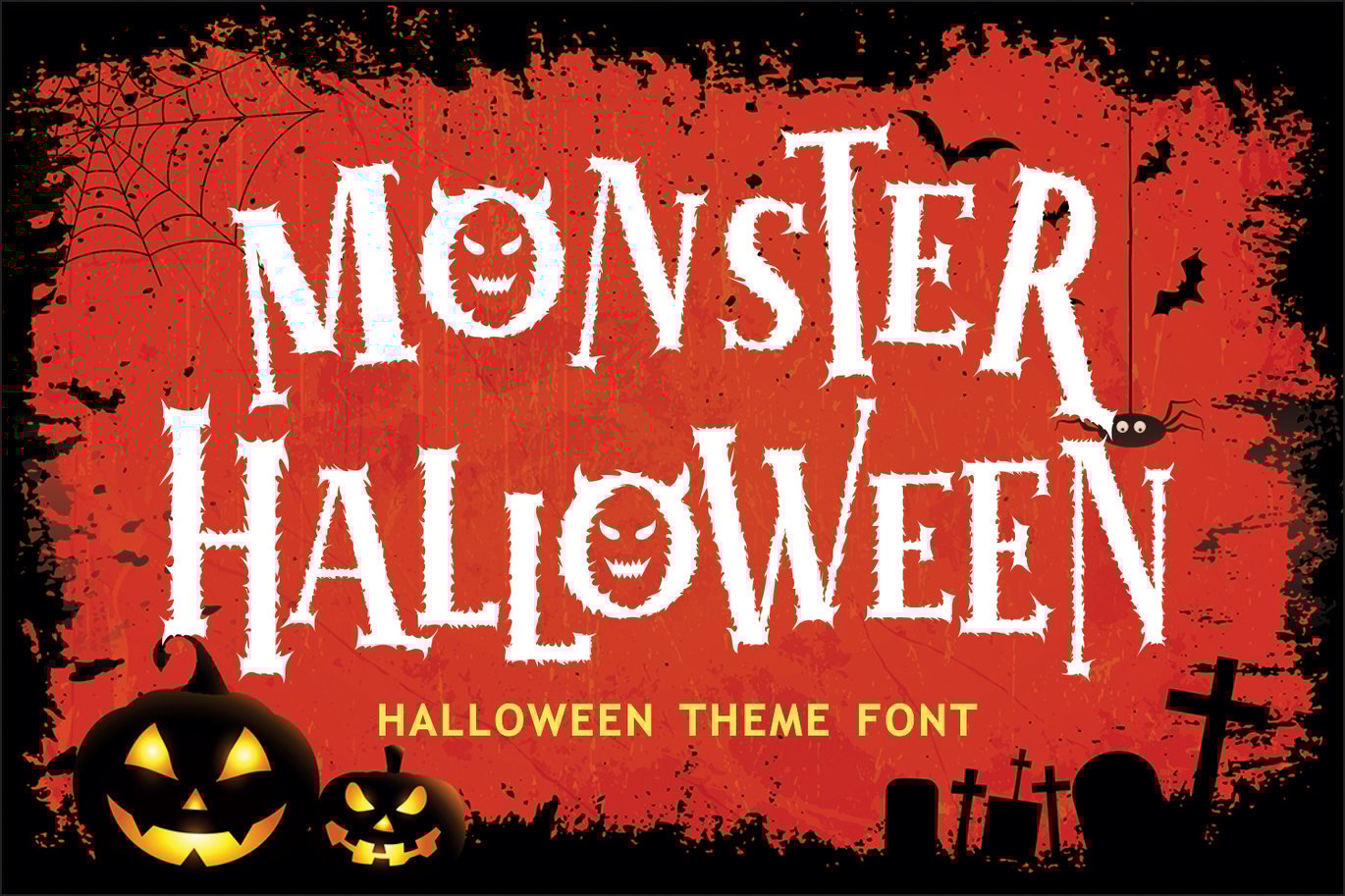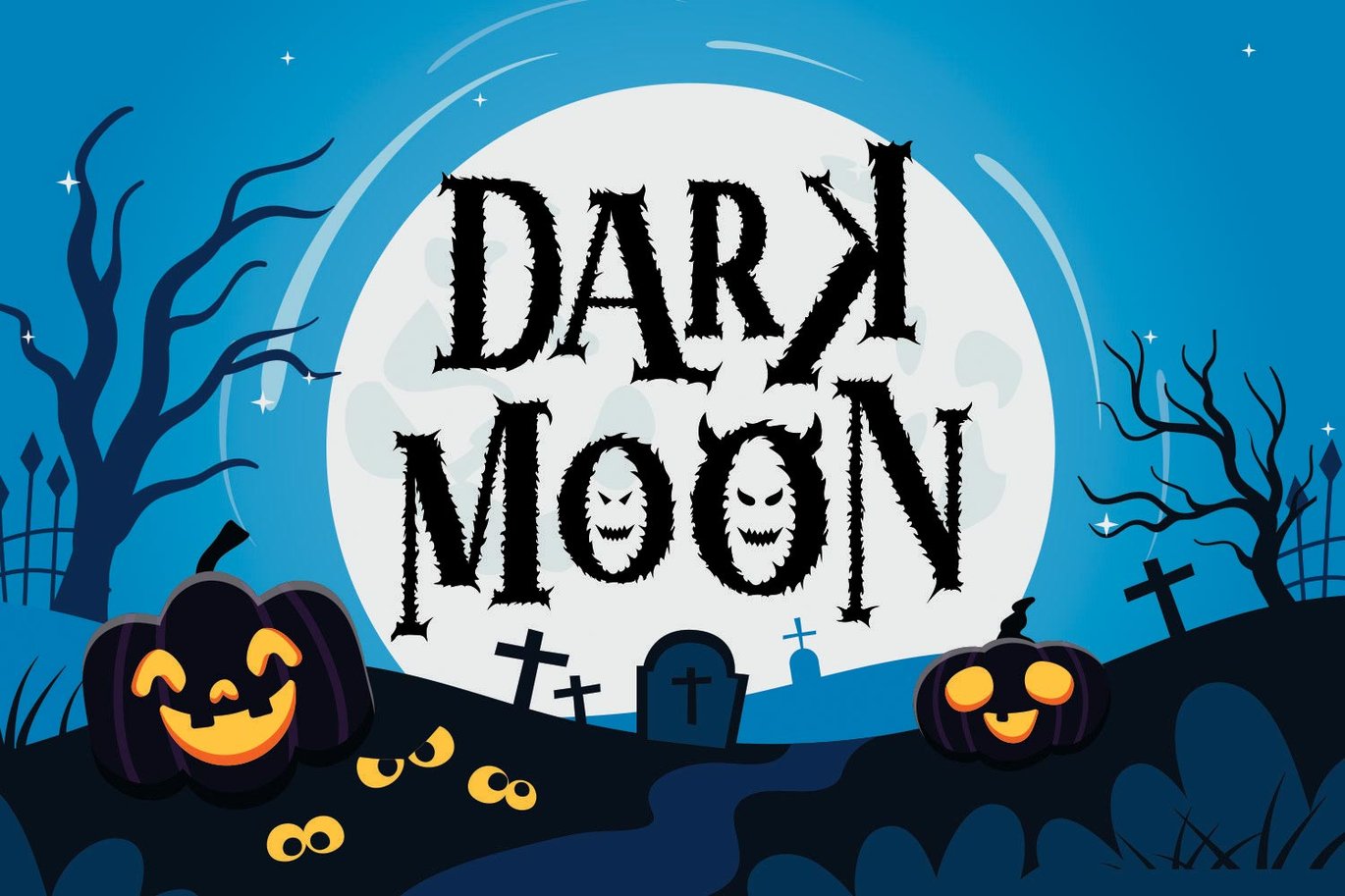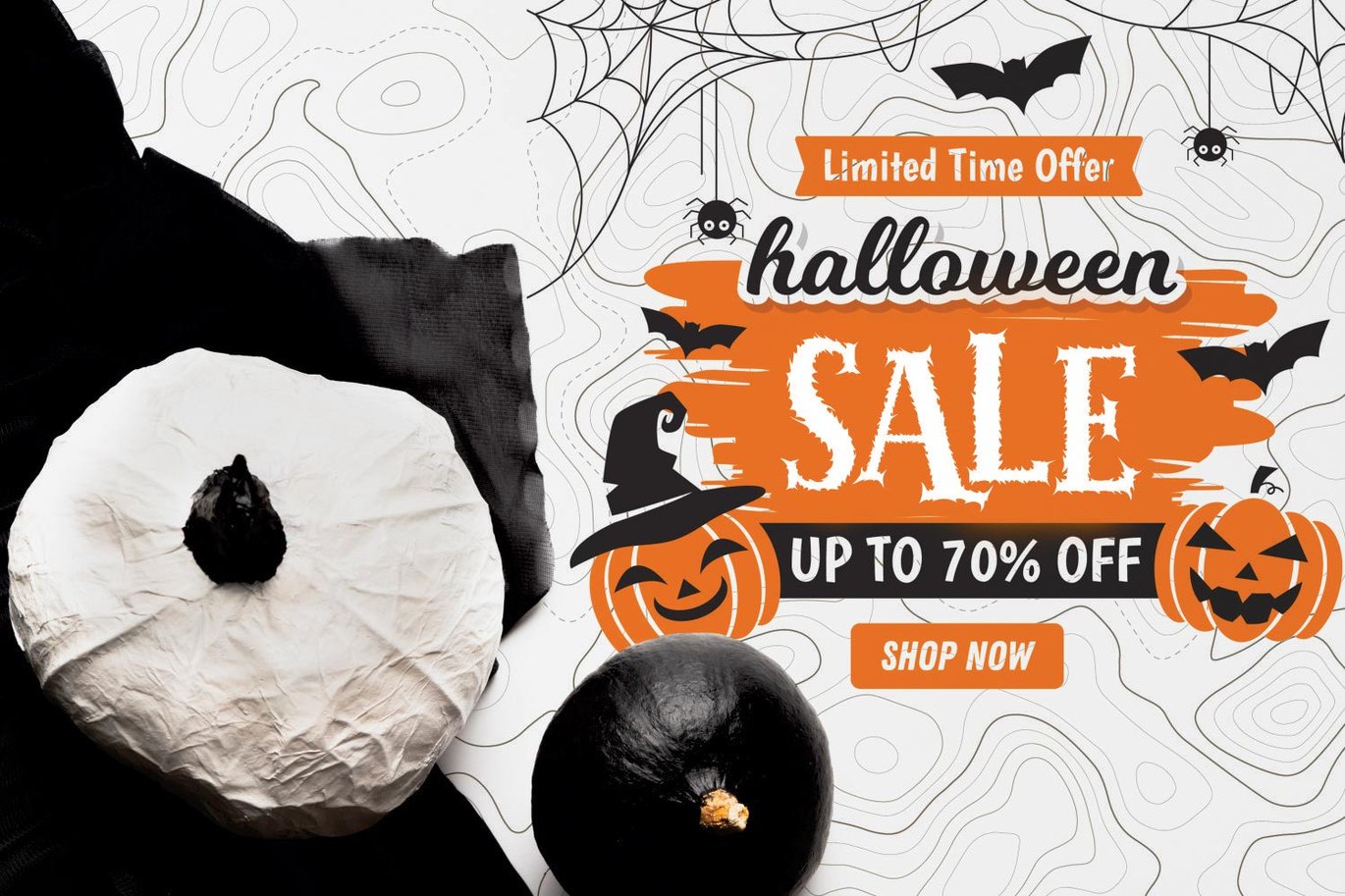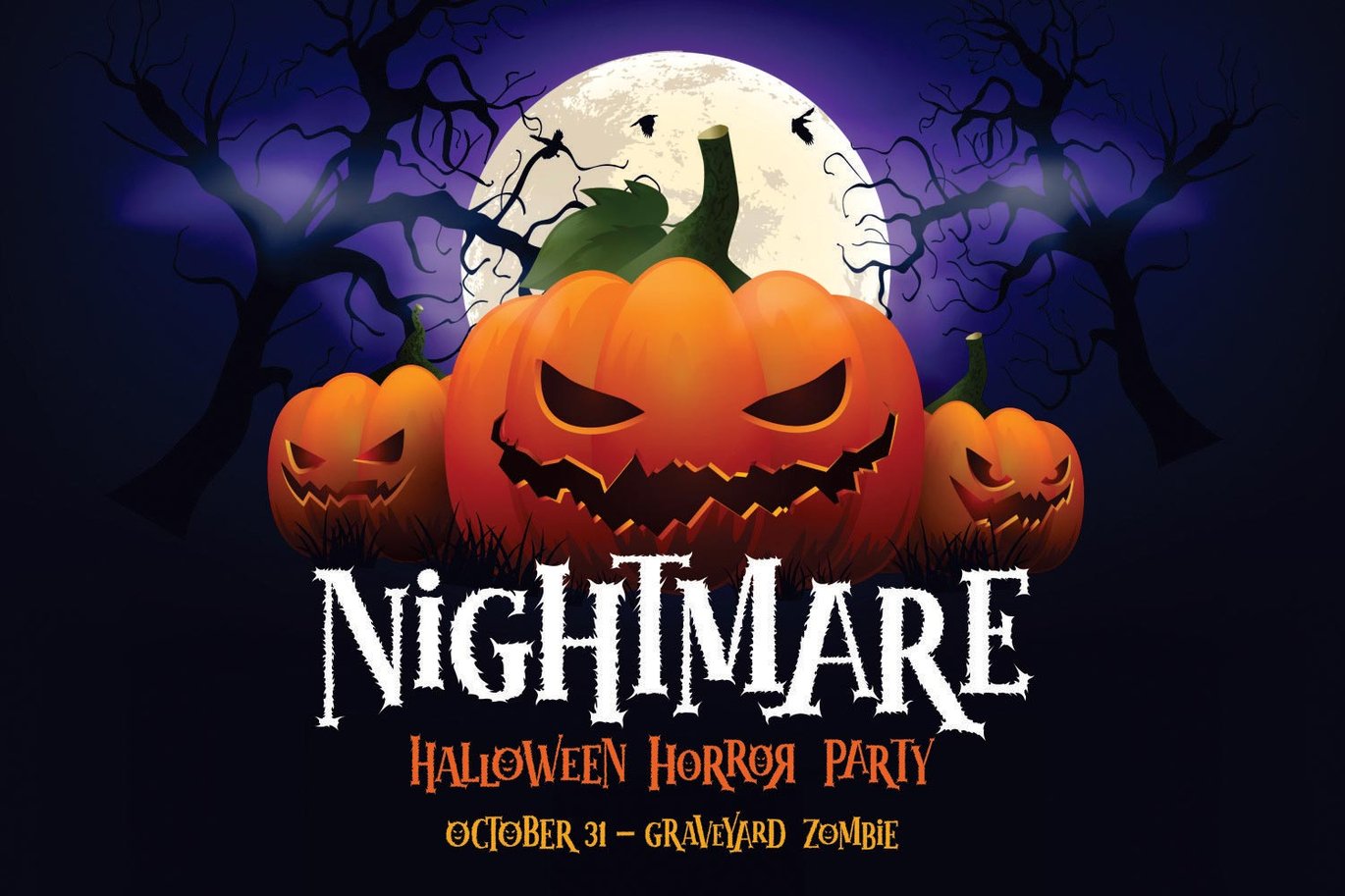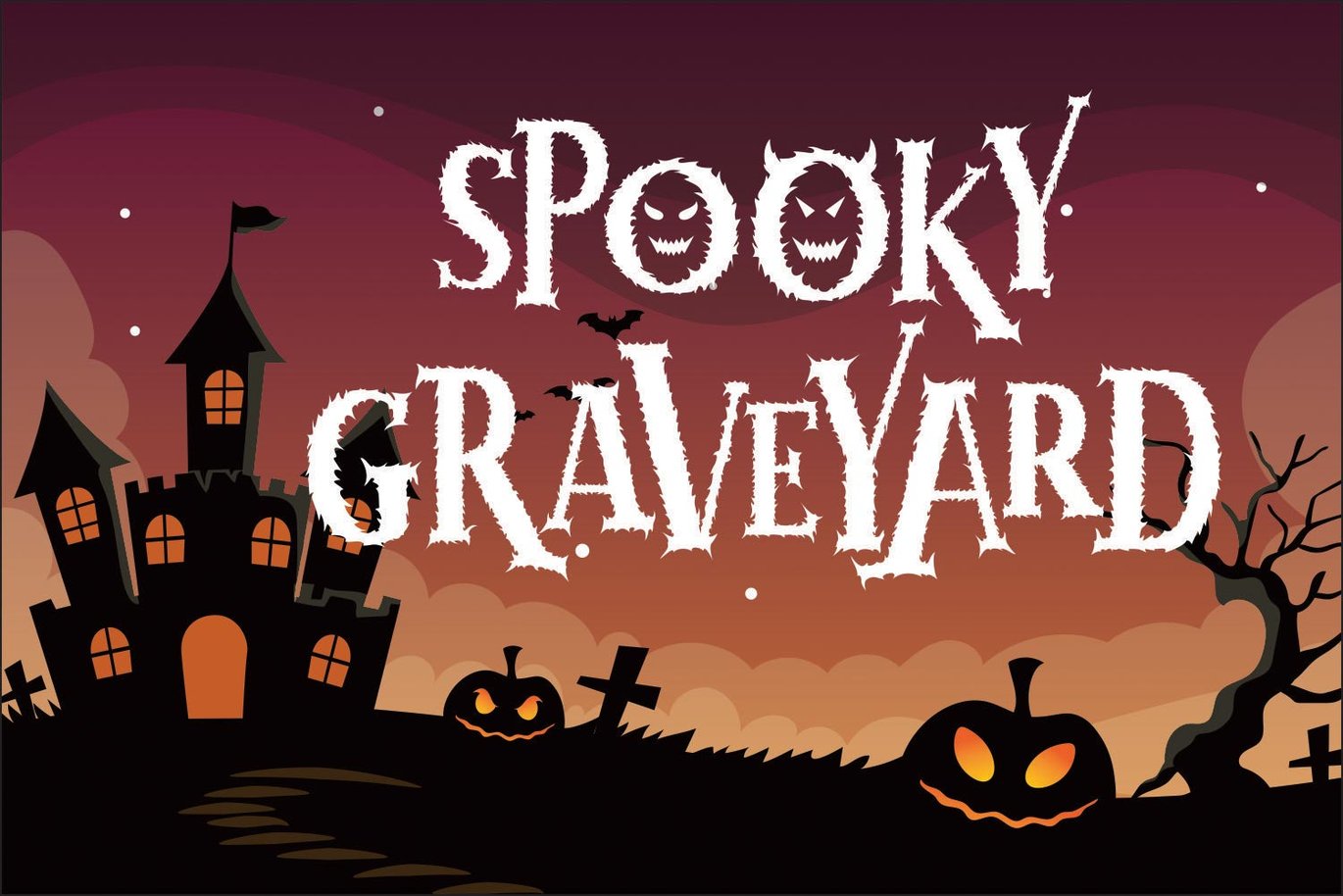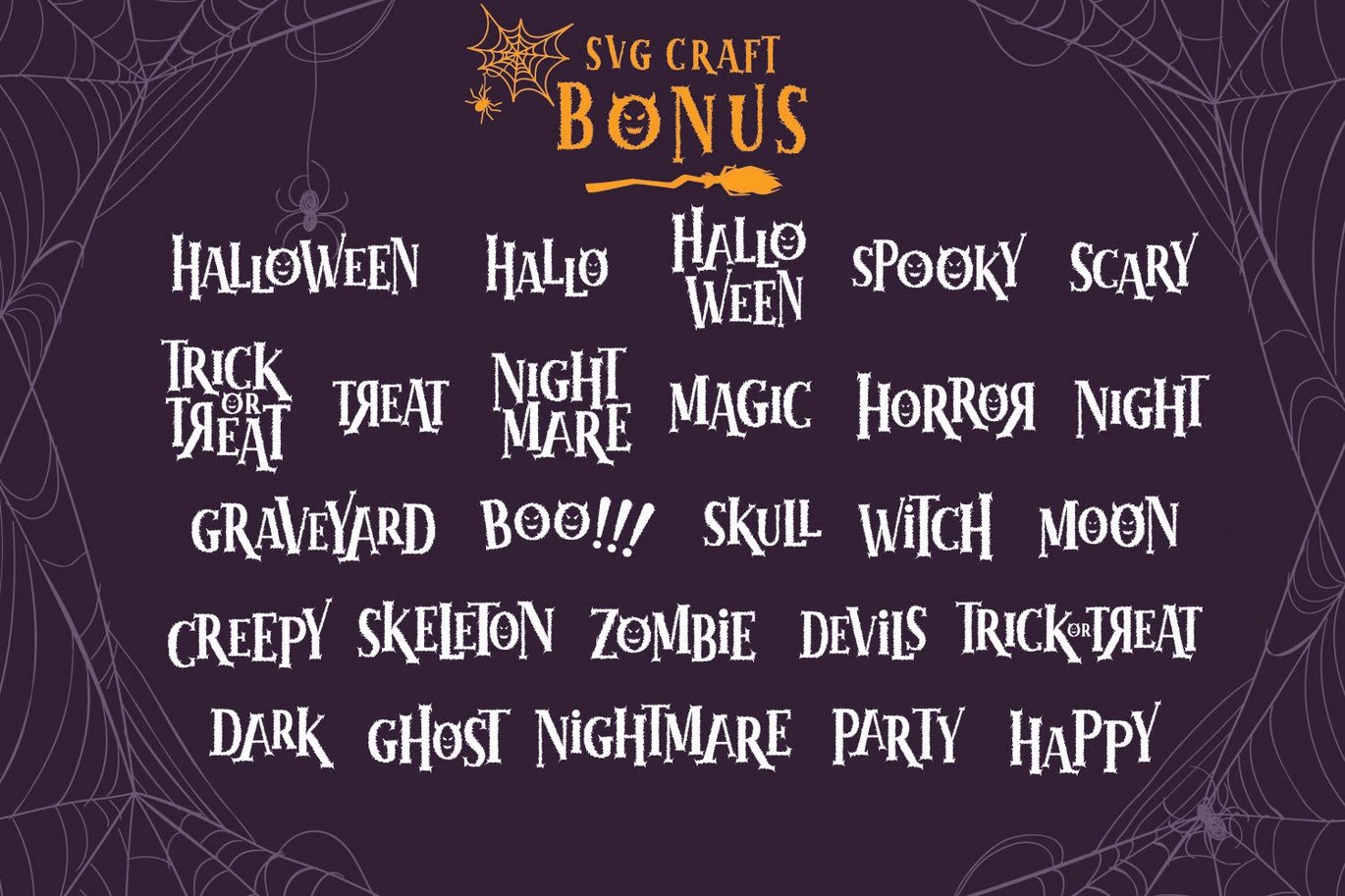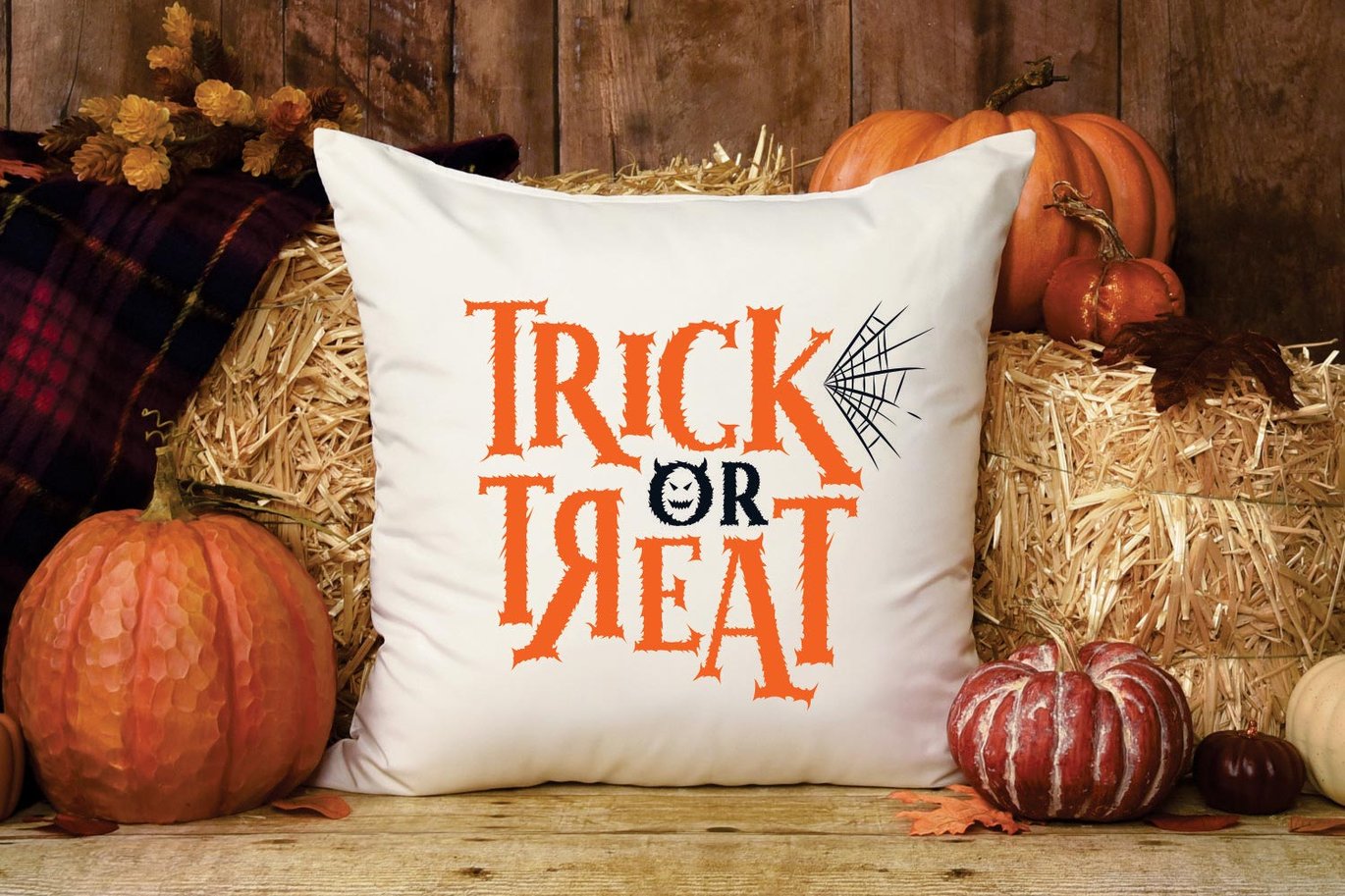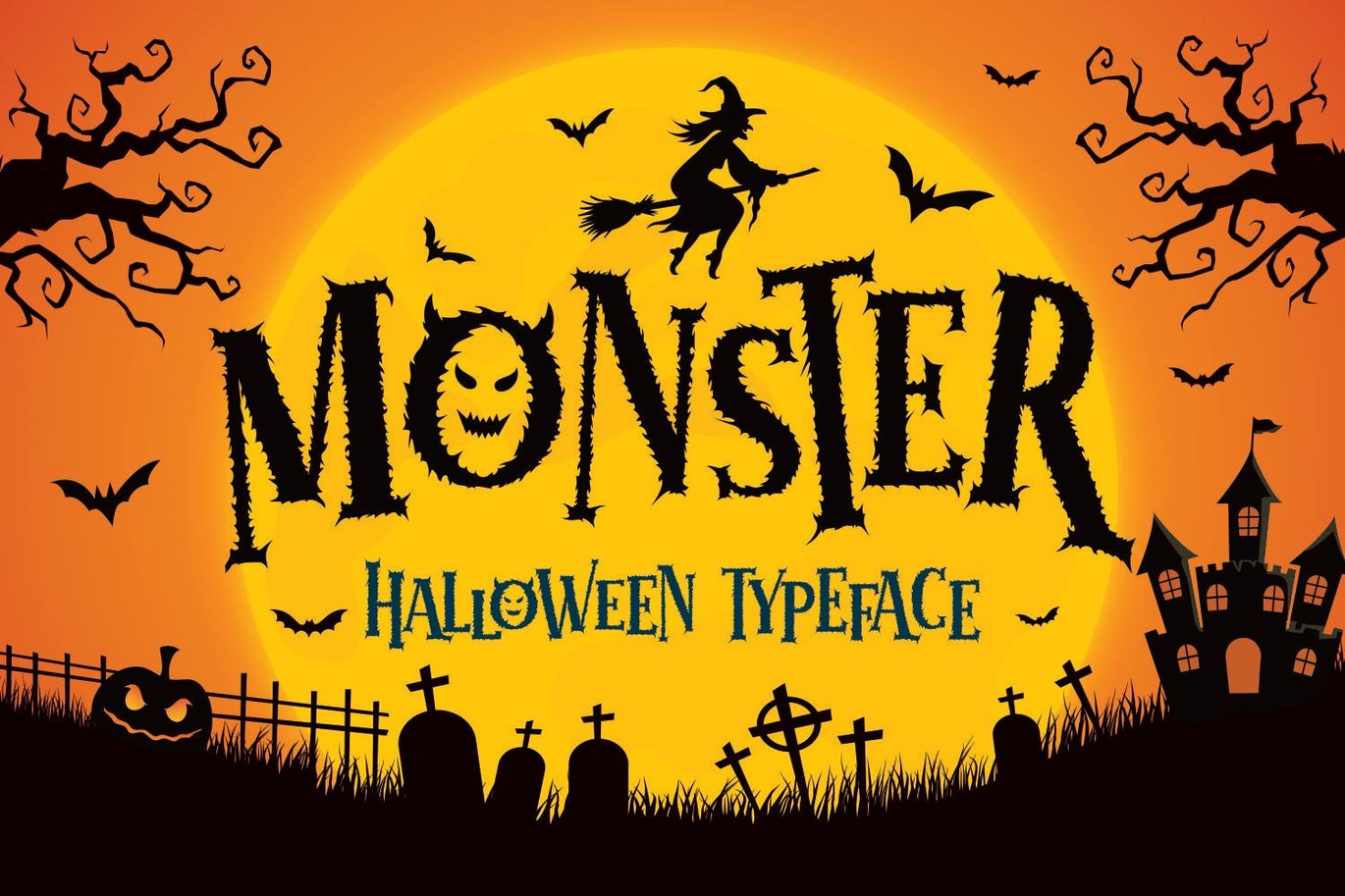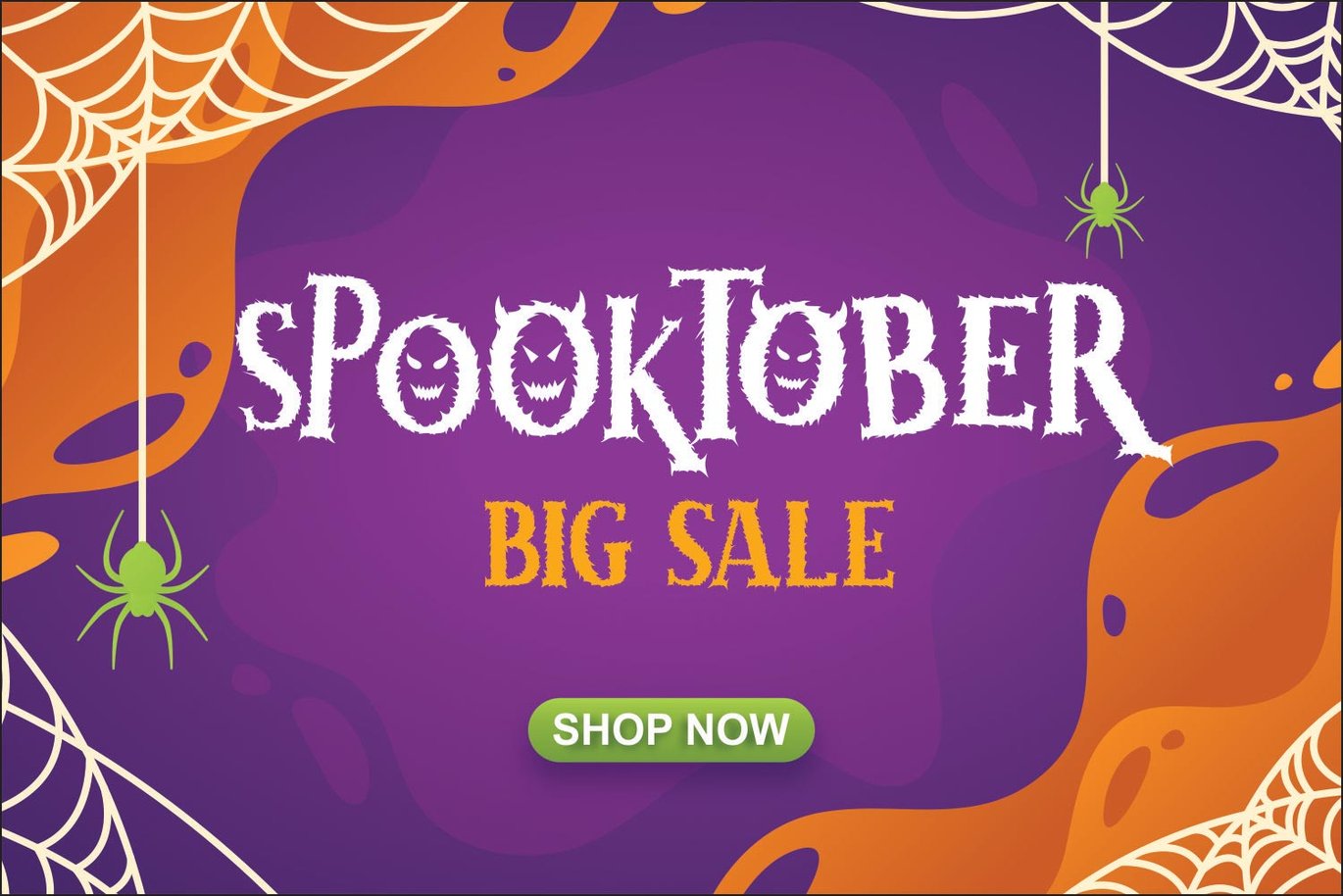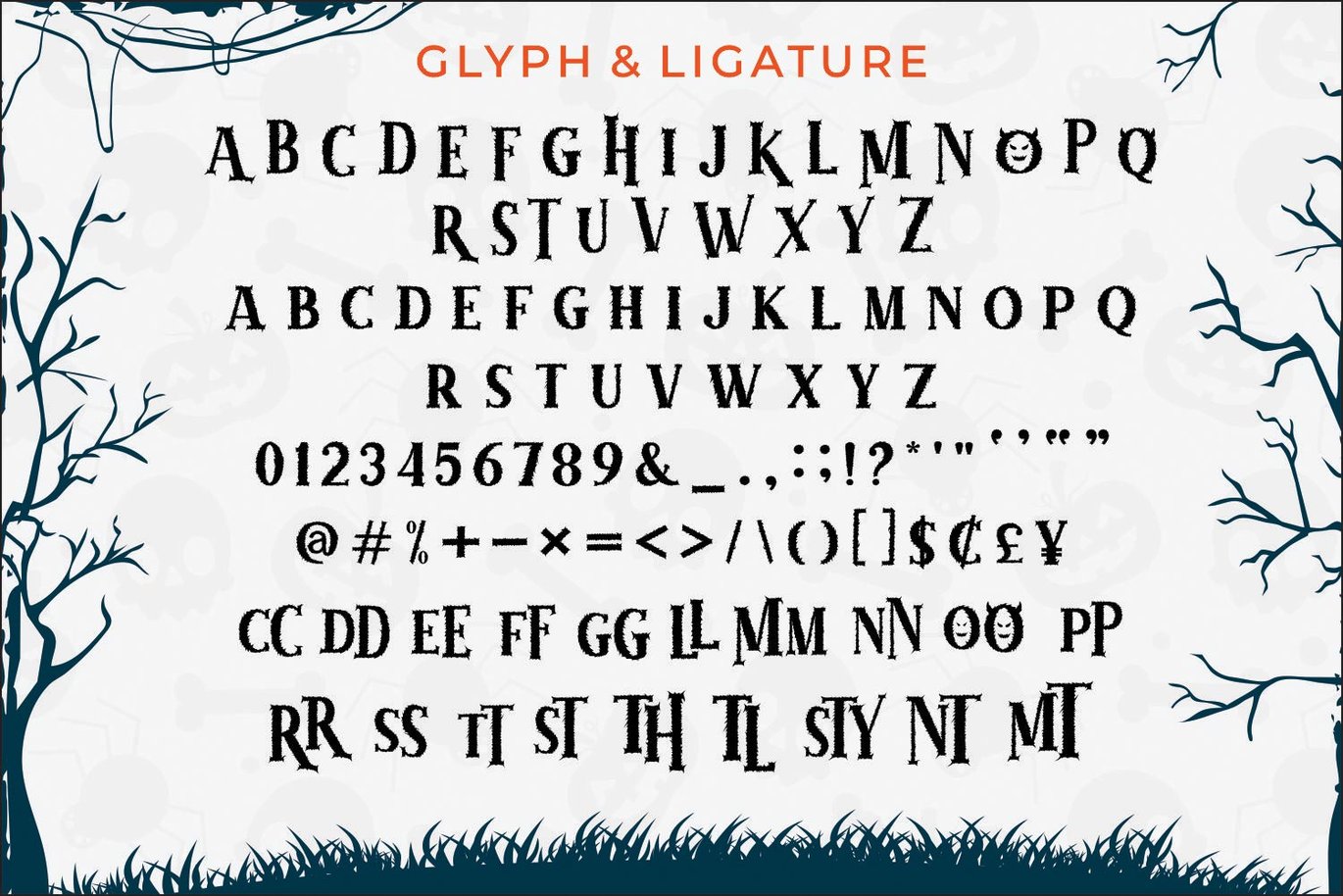
Monster Halloween Font
Introducing MONSTER HALLOWEEN, the ultimate font for adding a touch of spooky fun to your designs. Perfect for Halloween-themed projects, this font brings a playful and eerie vibe to any creation, making it ideal for party invitations, decorations, and more.
Get ready to elevate your Halloween designs with MONSTER HALLOWEEN. Whether you’re crafting creepy posters, designing trick-or-treat bags, or creating festive social media posts, this font will add that extra bit of frightful flair. Its unique style captures the essence of Halloween, ensuring your projects stand out.